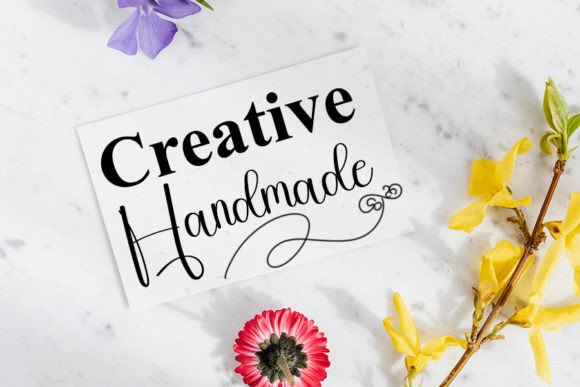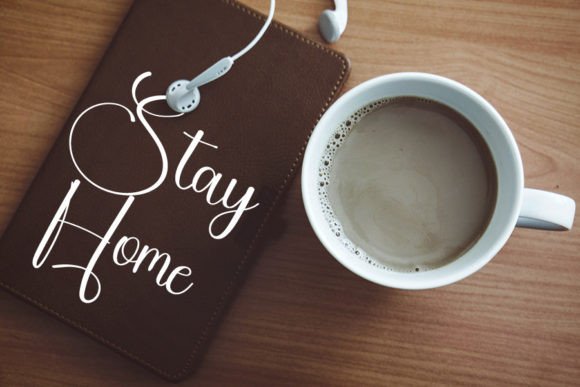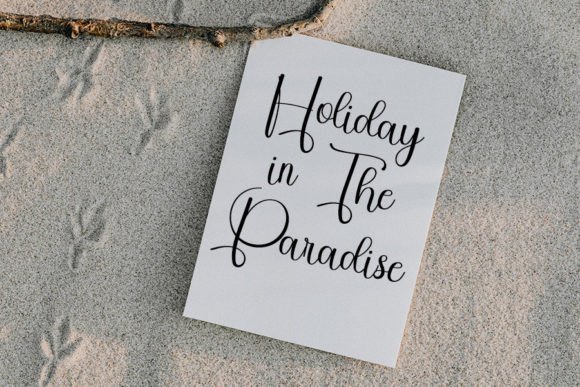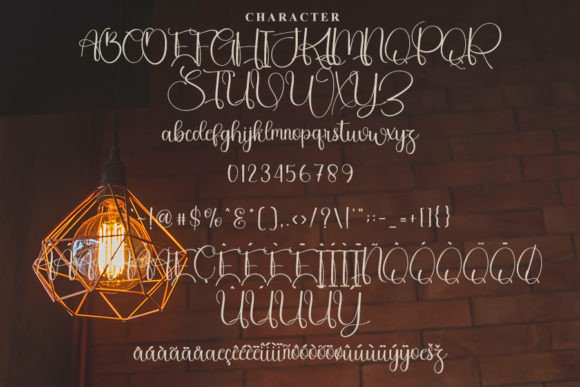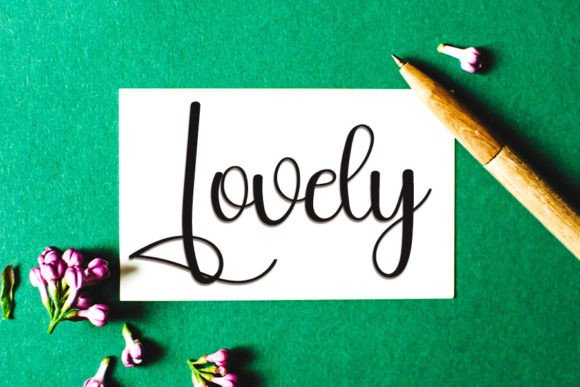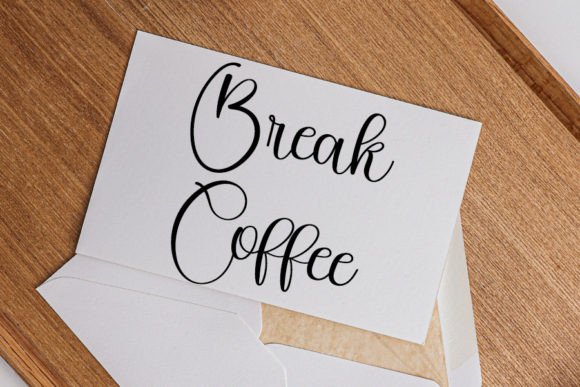
Brown Font: Elevate Your Designs with Elegance and Sophistication
In the world of typography, fonts play a crucial role in conveying the tone and personality of a design. Among the numerous fonts available, Brown Font stands out as a trendy handwritten font that exudes a contemporary atmosphere and impeccable form. Inspired by timeless classic calligraphy, Brown Font is the perfect addition to any design project, adding a touch of elegance and class.
The Inspiration Behind Brown Font
Brown Font draws inspiration from traditional calligraphy, which has been a cornerstone of elegant writing for centuries. The font’s creator aimed to capture the essence of classic calligraphy and infuse it with a modern twist, making it suitable for a wide range of design applications. The result is a font that is both sophisticated and approachable, perfect for designers and crafters looking to add a touch of refinement to their work.
Key Features of Brown Font
- Trendy and Contemporary: Brown Font boasts a modern and trendy aesthetic, making it perfect for designers who want to create fresh and youthful designs.
- Handwritten Style: The font’s handwritten style adds a personal touch to any design, making it ideal for projects that require a human and approachable feel.
- Elegant and Classy: Brown Font’s classic calligraphy inspiration lends an air of sophistication and elegance to any design, making it suitable for high-end projects and luxury brands.
- Versatile: The font can be used for a wide range of design applications, from logos and branding to packaging, posters, and more.
Use Cases for Brown Font
Brown Font’s versatility makes it an excellent choice for various design projects. Here are some use cases where the font can shine:
- Logos and Branding: Create a lasting impression with a custom logo or brand identity that incorporates Brown Font.
- Wedding and Event Design: Add a touch of elegance to wedding invitations, programs, and other event materials with Brown Font.
- Packaging Design: Elevate your product packaging with a sophisticated and modern font that stands out on store shelves.
- Advertising and Marketing: Use Brown Font in posters, flyers, and digital ads to create eye-catching and memorable campaigns.
Tips for Using Brown Font Effectively
To get the most out of Brown Font, follow these tips:
- Pair with Neutral Backgrounds: Brown Font looks stunning against neutral backgrounds, allowing the font to take center stage.
- Experiment with Colors: Try pairing Brown Font with complementary colors to create visual interest and add depth to your design.
- Use for Headlines and Titles: Brown Font is perfect for headlines and titles, adding a touch of elegance and sophistication to your design.
Brown Font is a versatile and elegant font that can elevate any design project. Its trendy and contemporary aesthetic, combined with its classic calligraphy inspiration, makes it an excellent choice for designers and crafters looking to add a touch of sophistication to their work. With its wide range of use cases and tips for effective use, Brown Font is sure to become a staple in your design toolkit.